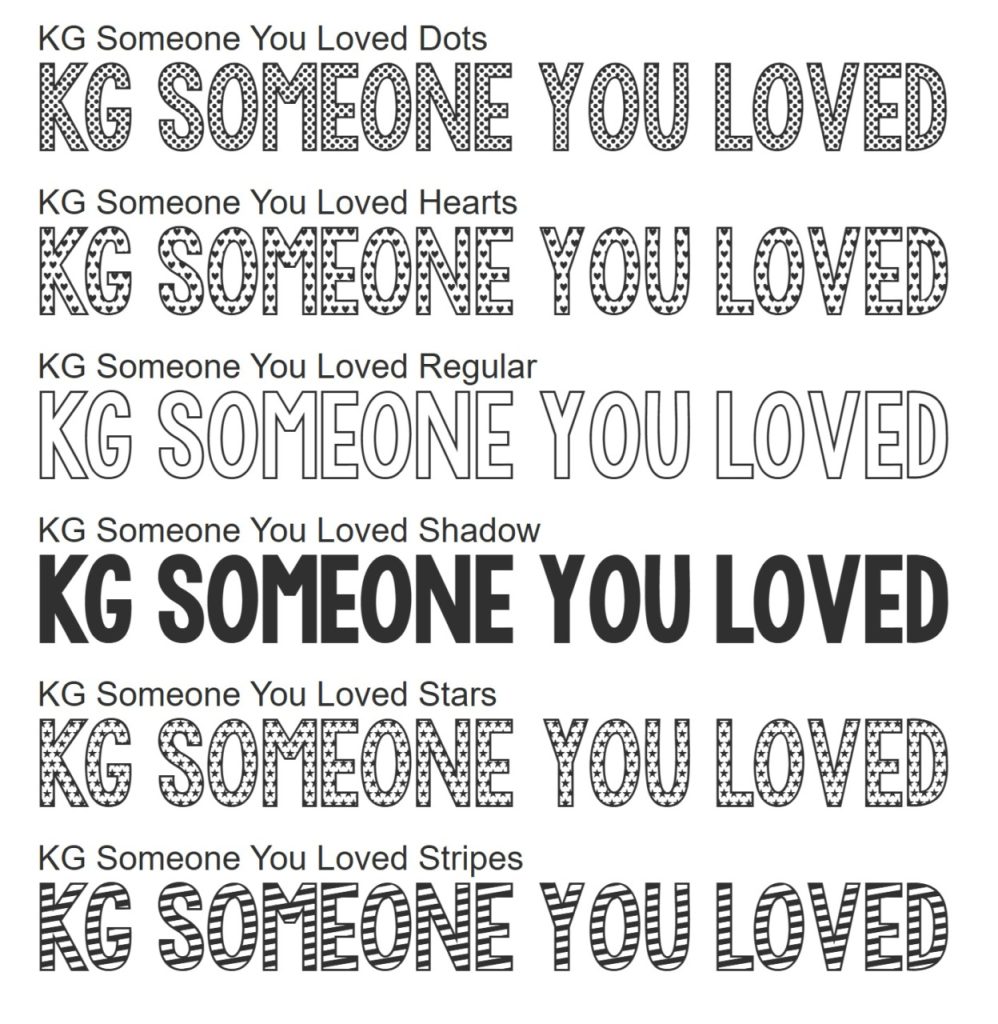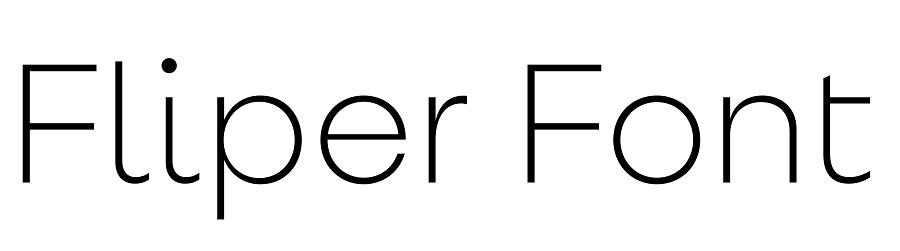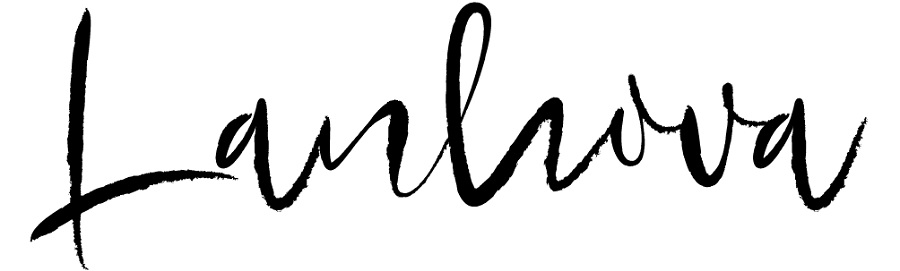
Fonts add personality to web designs and other graphic design projects. Most people are familiar with the tried and true favorites, such as Times New Roman and Arial. However, every year, today’s skilled typographers release new fonts.
While there isn’t an exact number of fonts released each year, most industry experts estimate the number is in the 100s, giving you not only all the fonts that have already been created to choose from, but an entirely new selection annually.
If you’re looking for something already established, you should check out our font series, covering a number of options that will work for most projects. However, if you want to find out what the hottest new fonts are for 2025, we’ve got you covered.
Hot New Fonts for 2025
The average person doesn’t think about the typeface on a website or printed material. They just read the words and form an impression instinctively. However, every font has a unique personality and usage. One of the reasons designers constantly release new fonts is to tap into the underlying power of the form of letters and words.
If you want to take your designs to a higher level, you need to utilize new and little known fonts. We spent some time looking at new releases and came up with a list of hot new fonts trending for 2025. These will work for a variety of projects.
Floriena
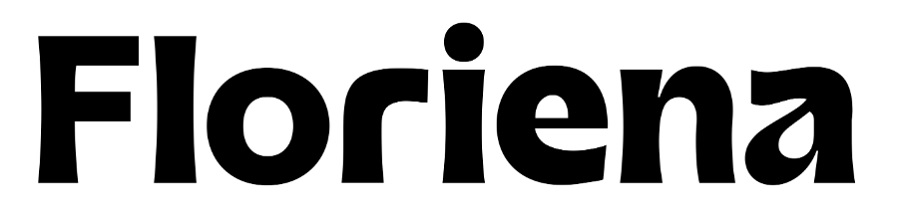
Floriena is a sans serif font designed by Doni Purwoko and released by Zeenesia Studio. The font is bold and wide, making it ideal for headings and logos. The mix of curves and straight edges give it a modern look with a nod to other eras.
Floriena is a TrueType font with 447 glyphs. It supports languages such as Danish, German, English, Spanish and Portuguese alongside many others. Floriena would work well for clothing brands, modern soap and candle makers or restaurants.
It translates best on posters, signs and website headings to retain the crisp appearance and make the unique angles readily apparent.
Fish Catcher
Fish Catcher comes with 188 glyphs. The font has a casual feel that is more script-like than some of the other choices in this list. The letters are bold but tall and thin with swoops and curves to make the font seem almost in motion.
This new font is best used as a headline. It doesn’t translate as well in smaller sizes. It also has a casual, modern edge that would work well for an e-commerce store or a poster.
Fish Catcher would be a great font for a sign for a seafood restaurant or as a logo for an online fishing supply store.
TT Gertika
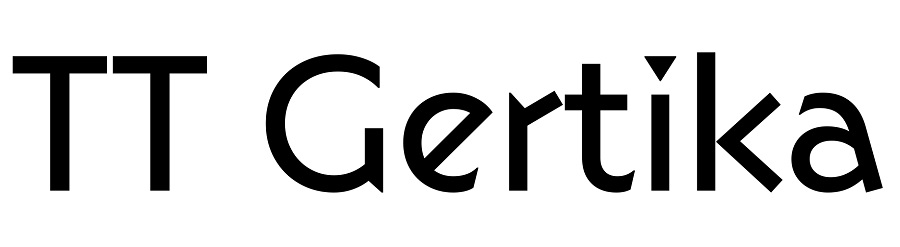
TT Gertika is a TT font with a geometric twist and was created by designers Antonina Zhulkova, Anastasia Pogorelova and the TypeType Team in November, 2024. The font looks best in higher points and features a sans serif base. The team says they were inspired by a font they saw on a 1930s poster with a similar structure.
The font has 90-degree diagonal strokes and glyphs that add features such as triangles as dots on the letter “i.” The font has a bold look that is best suited for big events and retro themes. This font would work well to announce a special event or for headlines.
Lanhova
If you’re looking for a good script font, Lanhova released in November and was updated a couple months later in January, 2025. The font features 246 glyphs and 250 characters. The handwritten font works well for logos. You can purchase a variety of licenses, including an extended license.
The swoops and ligatures of the font give it a fancy look, well suited for a book cover, movie poster or website heading. The text is a bit difficult to decipher in smaller sizes, so this one is best suited for headings and larger representations.
Lanhovia has a unique personality that is both contemporary and classic at the same time. The penning looks almost like someone writing with quill and ink. It might work well for history museums, collector websites or when you want the feel of the time before computers took over typing.
Fliper Font
If you’re looking for a sans serif typeface that will work well for both headlines and body text, the Fliper Font Family is an excellent choice. It is a humanistic font with geometric elements. It works well for different sizes because it comes in a variety of weights from Hairline to Extra Bold.
Designer Mateusz Machalski published the font just before Christmas 2024 and it made the top new fonts list in January, 2025. The font comes with style sets that let you rotate letters and create unique looking headlines. The font has a modern edge that works well for e-commerce brands.
Imagine using Bold or Extra Bold Fliper Font for a heading or logo. Your brand could then use Fliper Extra Light for body text. The variety of weights offers an opportunity for companies to create a style guide with a font hierarchy that helps the user know how to navigate the site. If the headlines are also a certain size and weight and the subheadings another, the user will understand the site’s architecture more easily and move through the sales funnel.
Browse New Fonts Throughout 2025
The fonts above give a good idea of the unique variety of offerings being posted regularly on font websites. However, new releases happen weekly. Make sure you search for the top new releases to see what people respond best to.
You can follow the trends as a way of creating unique new fonts or you can use the listings as inspiration for typefaces for your next project.